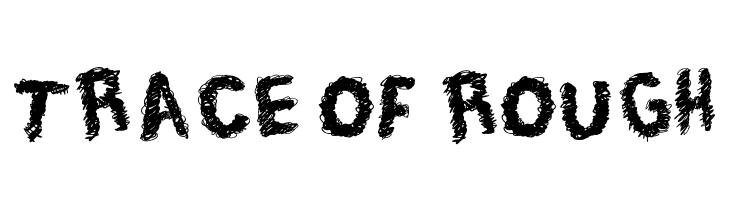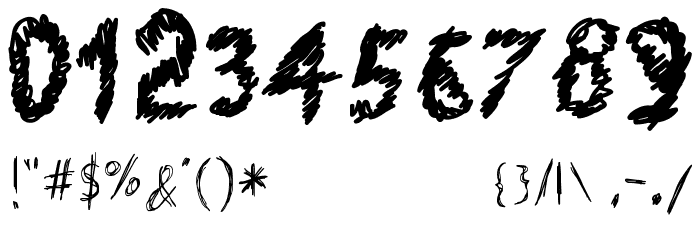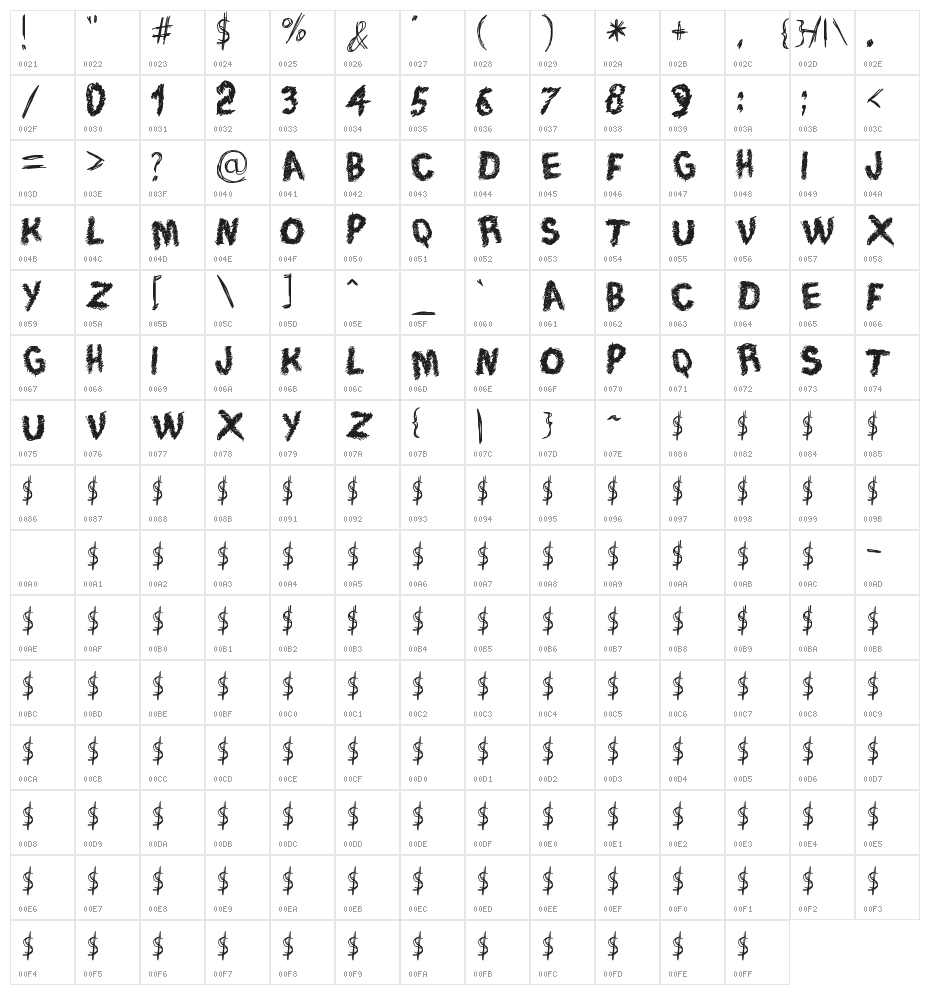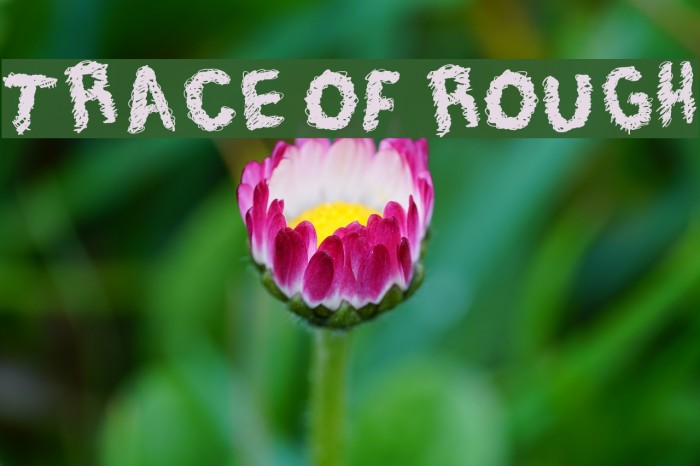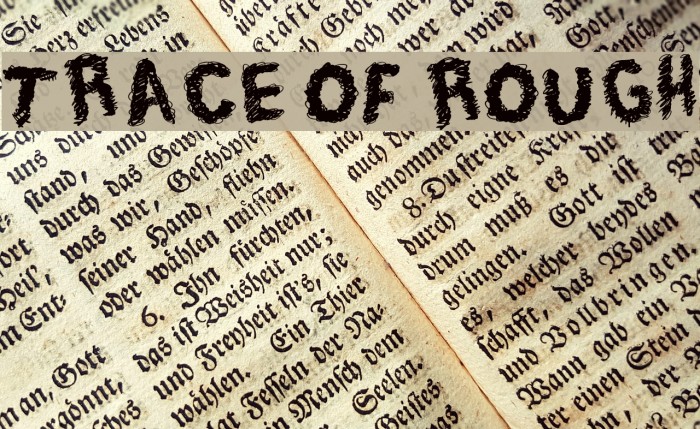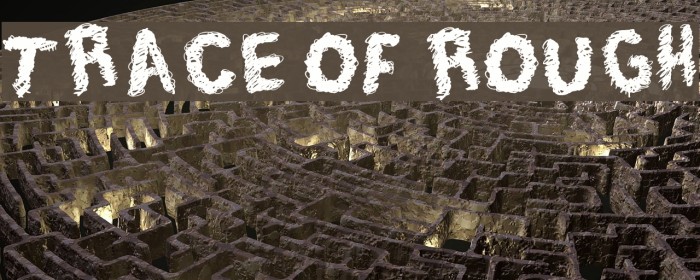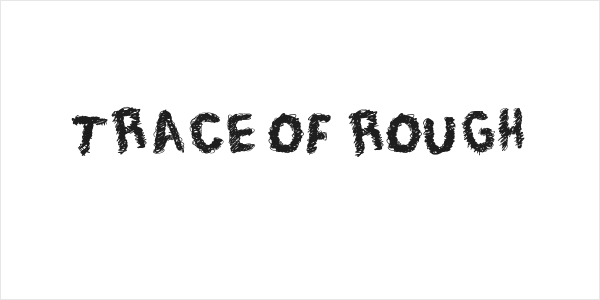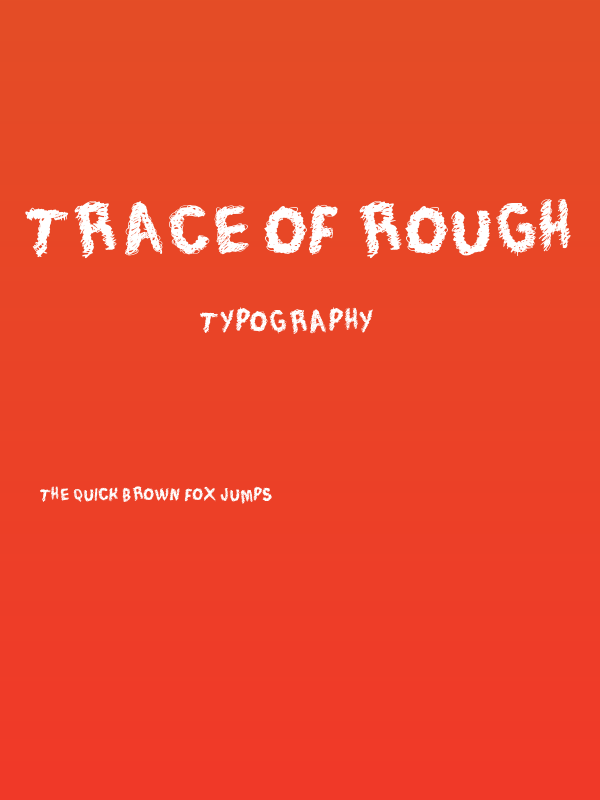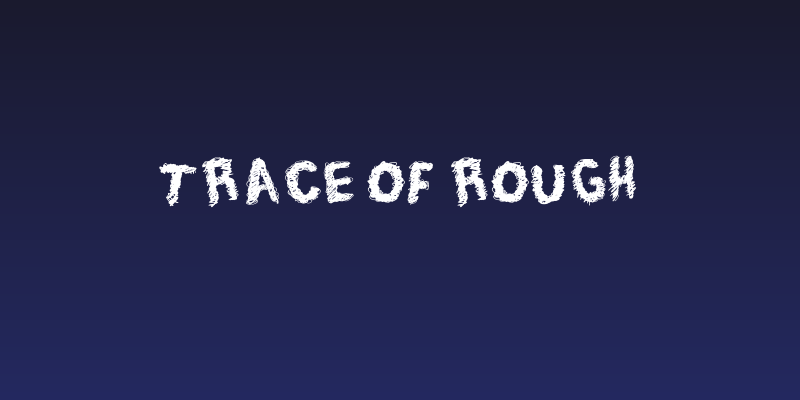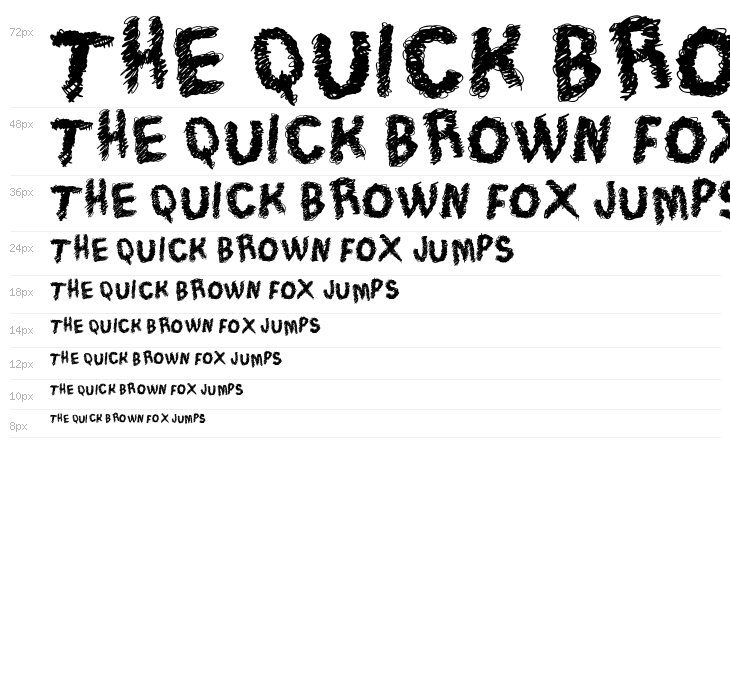
Trace of Rough Font
Trace of Rough Description
This font features a rough, hand-drawn style with a textured appearance that mimics the look of scribbled or sketched letters. Each character is uniquely crafted with irregular edges and a dynamic, energetic feel. The uppercase and lowercase letters maintain a consistent style, while the numbers and special characters follow the same aesthetic, adding to the overall cohesive look. The font's design is bold and eye-catching, making it suitable for projects that require a strong visual impact. Its distinct style is reminiscent of graffiti or street art, giving it a modern and edgy vibe.
| Overall Style | Modern, Edgy |
| Proposed Projects | Ideal for posters, album covers, street art designs, and edgy branding projects. |